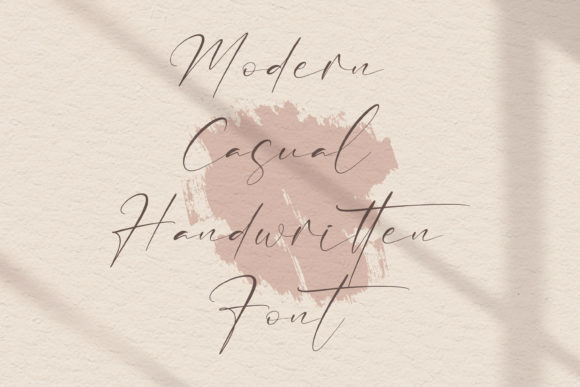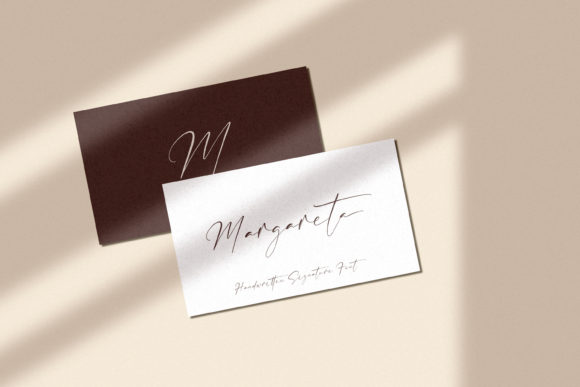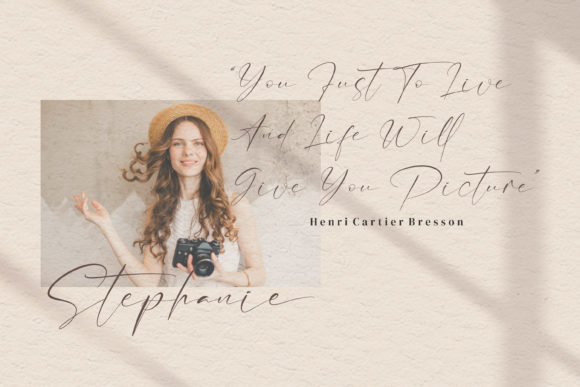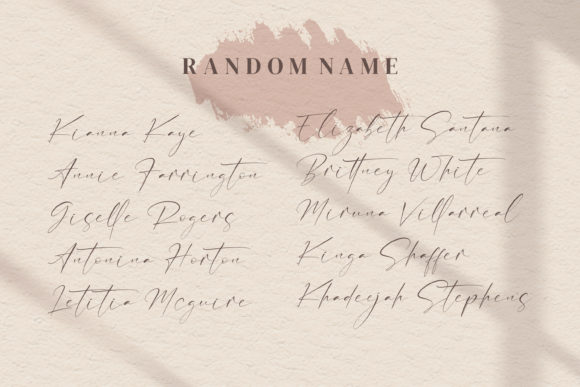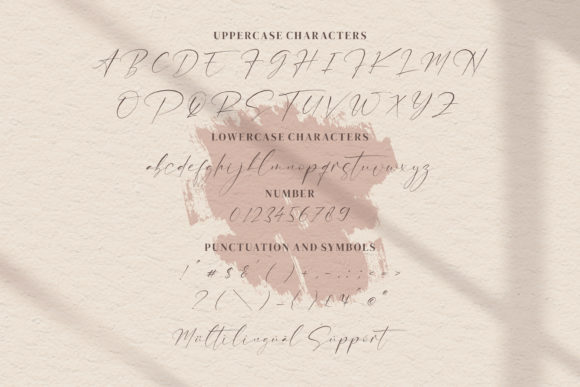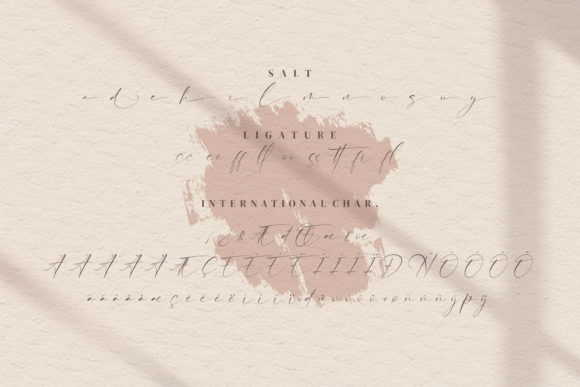
Discovering the Perfect Signature Font
Have you ever found yourself scribbling down notes or brainstorming ideas in a coffee shop, only to realize that the perfect font is missing from your digital arsenal? This is exactly what happened to me when I was working on a project and needed a unique signature font to elevate my branding.
Enter Anthoni Signature Font, a stylish and elegant typeface designed specifically for digital signatures. Its purpose is to add a personal touch to your online presence, making it stand out from the crowd. With its versatility and sophistication, Anthoni Signature Font has become a valuable asset for designers looking to take their branding to the next level.
Whether you’re a seasoned designer or just starting out, incorporating the Anthoni Signature Font into your workflow can make all the difference in creating a cohesive and recognizable brand identity.
Anthoni Signature Font Key Features
- Unique Characteristics: Features a modern, elegant, and sophisticated design aesthetic, making it perfect for signatures, logos, and branding materials.
Anthoni Signature Font Review
Overall, I was quite impressed with the Anthoni Signature Font. It has a unique blend of elegance and modernity that can be very effective in the right design context. ✨ The curves and lines are well-balanced, making it perfect for headings, titles, and other prominent text.
Here are some of its notable features:
- Highly legible and clear, even at smaller font sizes
- Excellent for creating a sense of sophistication and refinement
- Works well with a variety of design styles, from minimalism to luxury
- It may not be the best choice for body text or long paragraphs, as it can be a bit too decorative
- Some users may find the font a bit too ‘safe’ or unoriginal
- It may not be as versatile as some other fonts when it comes to different font sizes and styles
- Choose a soft, pastel background color to complement the font.
- Use the font to create a custom wedding monogram or initials.
- Add a beautiful floral pattern or watercolor design to enhance the invitation’s aesthetic.
- Pair the font with a elegant serif font, such as Playfair Display or Garamond, for a sophisticated look.
- Use a watercolor or hand-painted effect to add a touch of whimsy and romance.
- Choose a bold, bright color to make the font stand out.
- Use the font to create custom stickers for dates, events, or reminders.
- Add fun and colorful illustrations or doodles to complement the font.
- Pair the font with a modern sans-serif font, such as Open Sans or Lato, for a clean and minimalist look.
In conclusion, the Anthoni Signature Font is a solid choice for designers looking to add a touch of sophistication to their projects. While it may not be perfect for every situation, it’s definitely worth considering for its unique blend of style and elegance. ✨
Use Anthoni Signature Font for creating eye-catching logos, branding materials, and social media graphics.
Q: What is the recommended font size for using the Anthoni Signature Font?
The Anthoni Signature Font is designed to be used at a minimum font size of 12 points. However, for optimal readability, we recommend using a font size of 14 points or larger. This will help ensure that the font is clear and legible, even at smaller sizes.